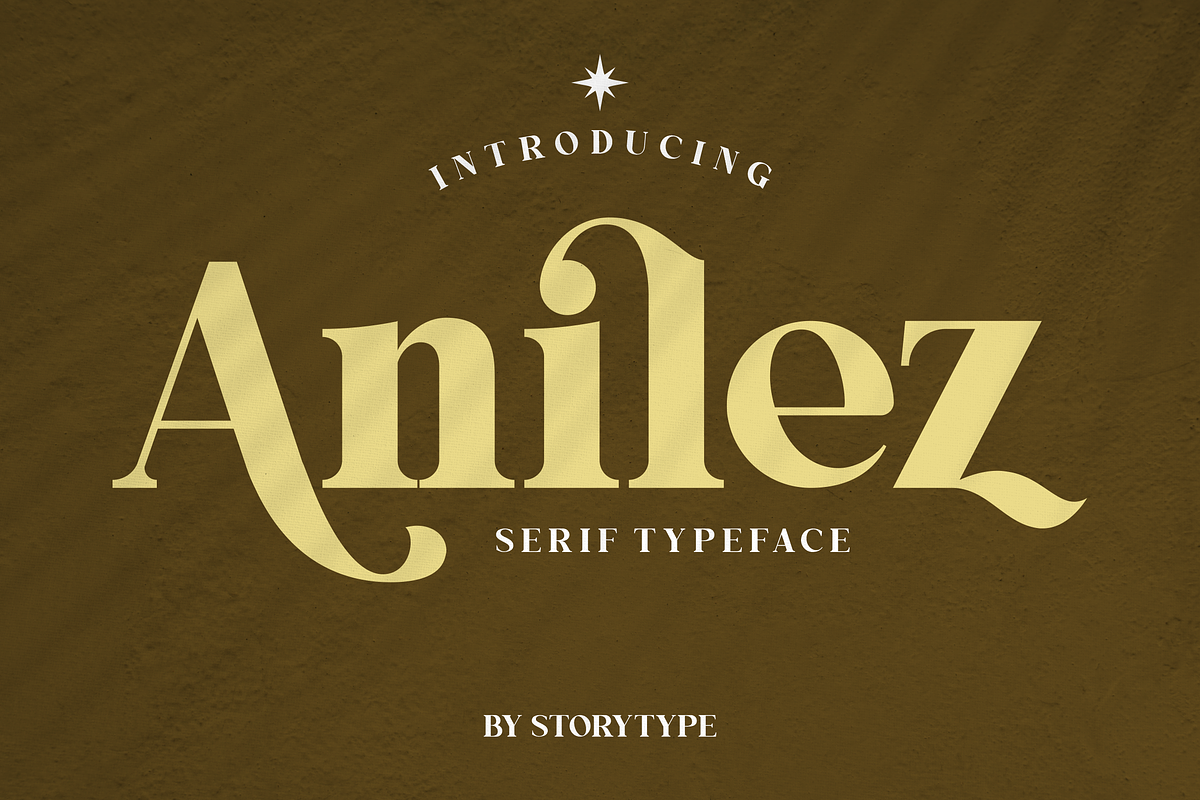
Anilez Serif Typeface Font Free Download
Anilez Serif Typeface Font Free Download is a sophisticated and modern serif font designed for projects that demand elegance and readability. With its balanced structure, sharp serifs, and clean lines, Anilez is perfect for editorial design, branding, advertising, book covers, and website headers that require a refined and professional look.
This typeface delivers both style and functionality, making it versatile enough for both large headlines and small body text. Whether you’re designing for a luxury brand or creating a stylish magazine spread, Anilez enhances your typography with a timeless aesthetic.